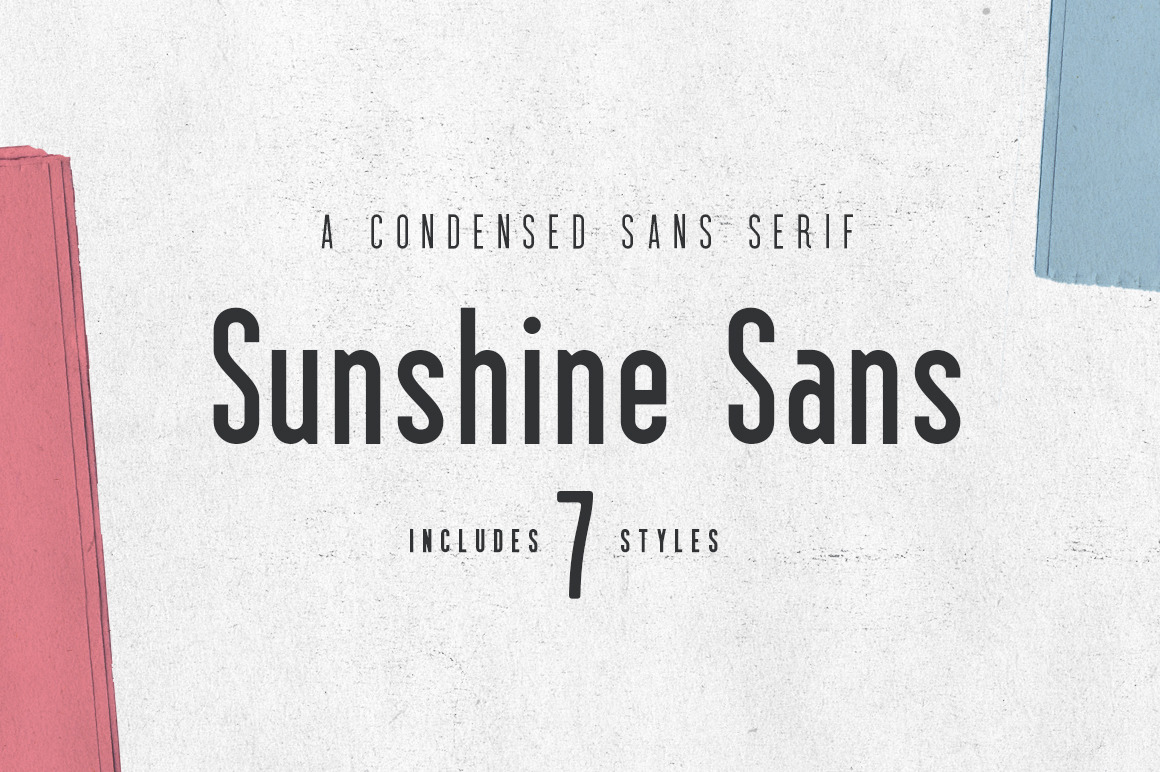
Sunshine Typeface Family
Here is the complete set of Sunshine with all it variations and weights. Sunshine is a typeface made with modern letterforms which have been translated into a variety of styles including, stencil, spurred and various rounded versions. These can be used together on projects to create depth and a good sense of unity in your design. Each also comes with a corresponding web font which you can use on web projects. This condensed typeface gives uses for editorial headlines, drop-caps, as well copy text using the light, regular, and bold weights.